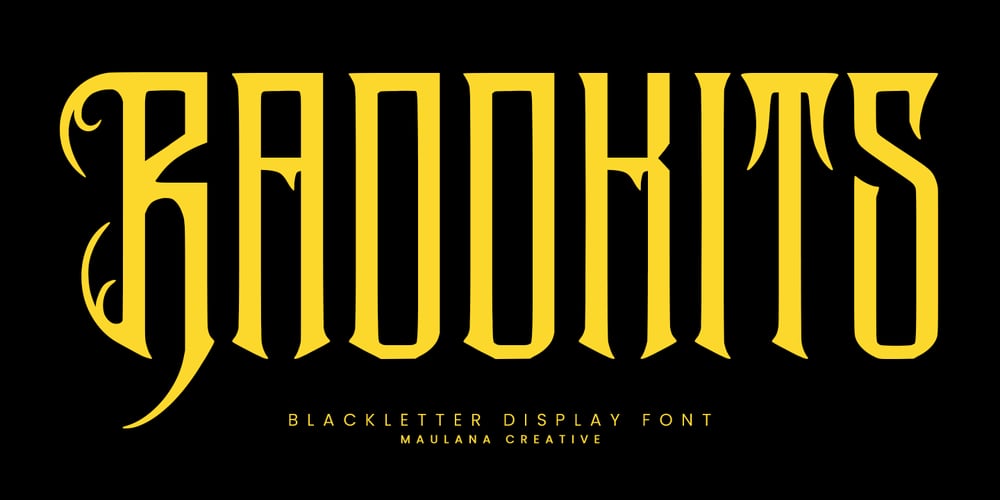
MC Raddkits Font Family was designed by Gilang Maulana and published by Maulana Creative. MC Raddkits contains 1 styles and family package options. Raddkits blackletter display font. Heavy stroke, vintage character with alternates. To give you an extra creative work. Raddkits blackletter font support multilingual language. This font is good for logo design, Social media, Movie Titles, Books Titles, a short text even a long text letter and good for your secondary text font with script or serif. Make a stunning work with Raddkits blackletter display font. Cheers, Maulana Creative